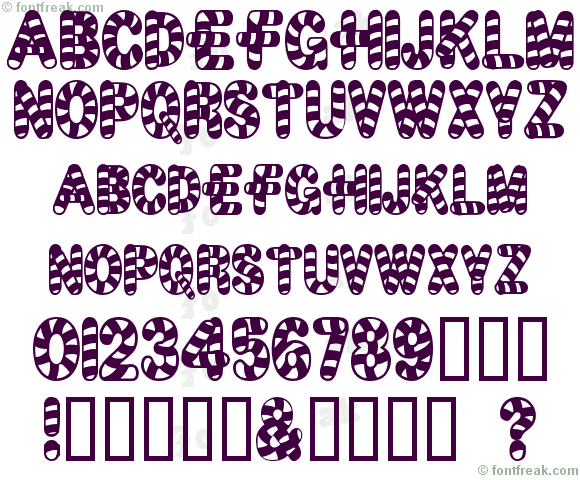
CandyTime
Candy Time by Lime is a delightful decorative font that embodies the playful essence of sweetness and nostalgia. This unique typeface, released in 2003, features bold, rounded letterforms that evoke the whimsical charm of candy, making it perfect for projects that aim to capture a light-hearted and cheerful vibe. The stroke weight is consistent, adding a sense of uniformity, while the generous spacing between characters enhances readability, ensuring that your message stands out without being overwhelming.
The visual characteristics of the Candy Time font include soft curves and subtle decorative elements, reminiscent of swirling icing or playful candy shapes. This design style lends itself beautifully to a variety of creative applications. It is particularly well-suited for children’s party invitations, where its joyful aesthetic can set the tone for fun and celebration. Additionally, it works wonderfully for food packaging or restaurant menus, particularly in dessert shops or candy stores, where it can attract customers with its inviting appeal. Graphic designers and content creators may also find the Candy Time font an excellent choice for vibrant social media graphics or eye-catching promotional materials that require a dash of whimsy.
What truly makes the Candy Time font stand out is its ability to evoke a sense of joy and nostalgia while remaining highly functional for modern design applications. Whether you’re crafting a playful invitation or designing a brand that resonates with sweetness, the Candy Time font free download will undoubtedly add a touch of magic to your projects.